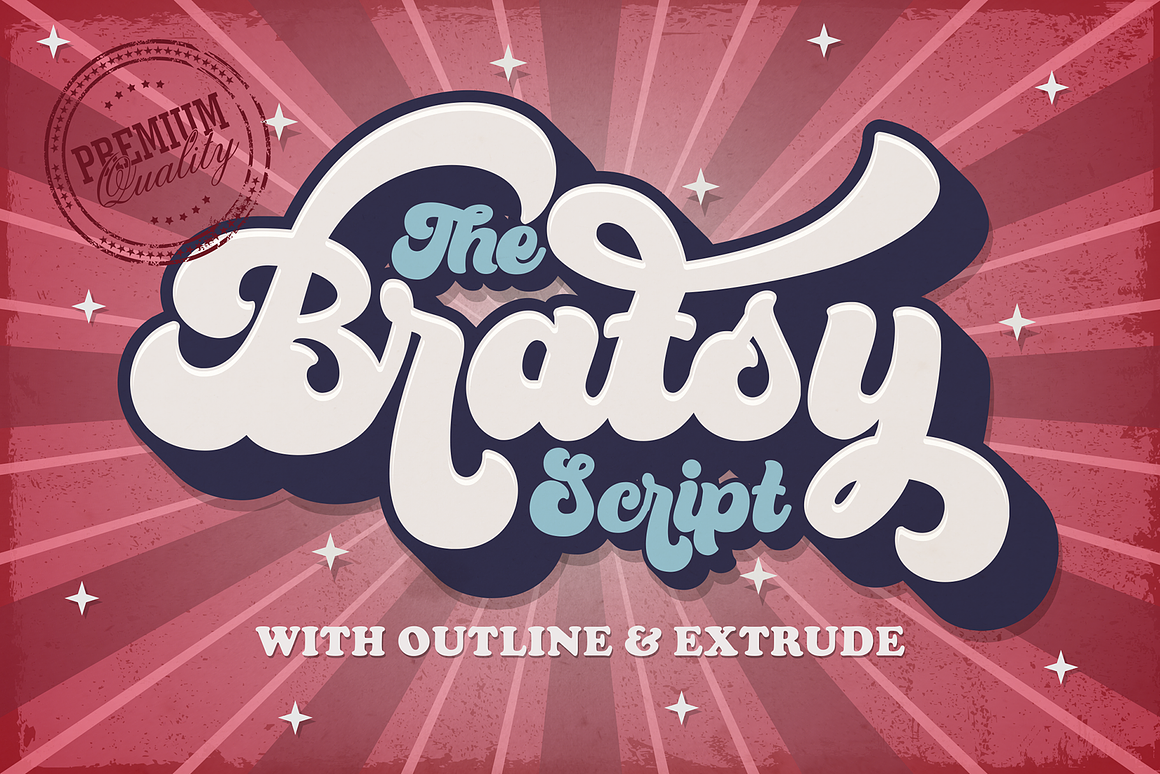
Bratsy Script - Layered Retro Font
Bratsy Script Layered Retro Font is perfect for vintage diner branding, retro ice cream parlor signage, 1950s-themed restaurant menus, classic car show advertisements, rockabilly band merchandise, and nostalgic bakery packaging. This charming typeface works exceptionally well in vintage clothing boutiques, retro gaming arcades, and authentic American diner communications.
What makes Bratsy Script Layered Retro Font so exciting is its authentic mid-century charm that perfectly captures the optimistic spirit of 1950s Americana through innovative layered typography. The font features playful script letterforms with dimensional layering effects and classic retro styling that creates genuine vintage appeal. Its nostalgic aesthetic demonstrates exceptional attention to period detail, making it ideal for brands seeking to convey fun, authenticity, and classic American cultural heritage.
Bratsy Script Layered Retro Font comes as a comprehensive layered system including Base, Shadow, Highlight, and Outline components. The font family also includes vintage decorative elements, retro symbols, and classic Americana ornaments that enhance the nostalgic quality and provide unlimited creative possibilities for period-authentic design applications.
The font's layered construction ensures exceptional versatility across various retro applications while maintaining its distinctive mid-century character. Professional designers appreciate its comprehensive component system and specialized retro features that enable authentic vintage styling with modern production efficiency.
Bratsy Script Layered Retro Font has established itself as a favorite among creative professionals working with vintage and retro brands. Its ability to convey genuine 1950s charm and layered design sophistication makes it an invaluable asset for organizations seeking to create authentic nostalgic experiences through period-accurate typography.